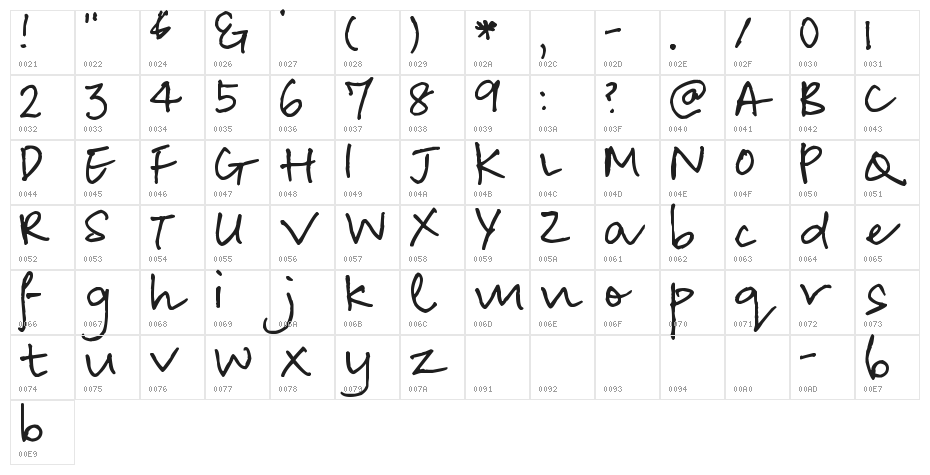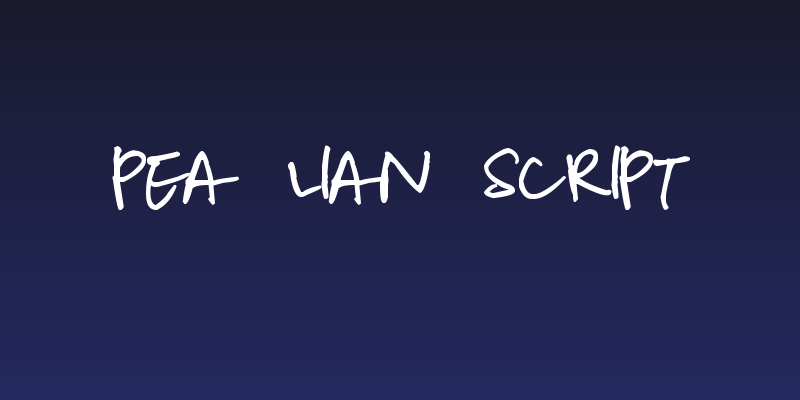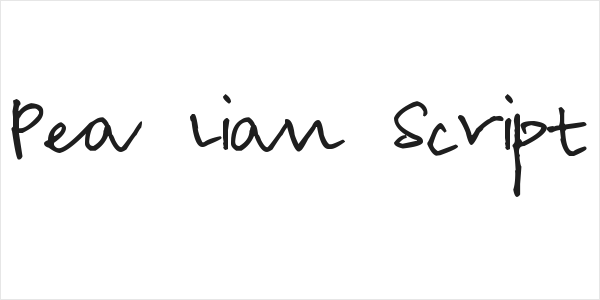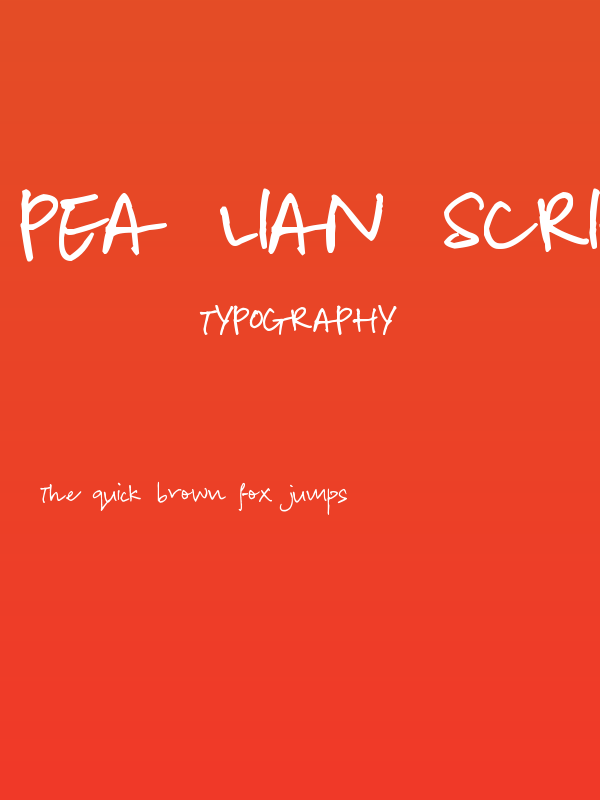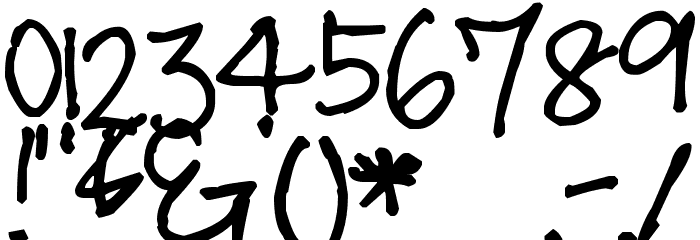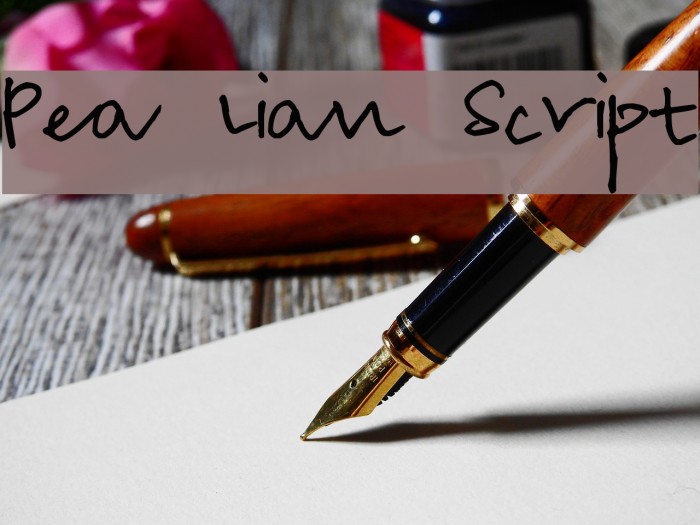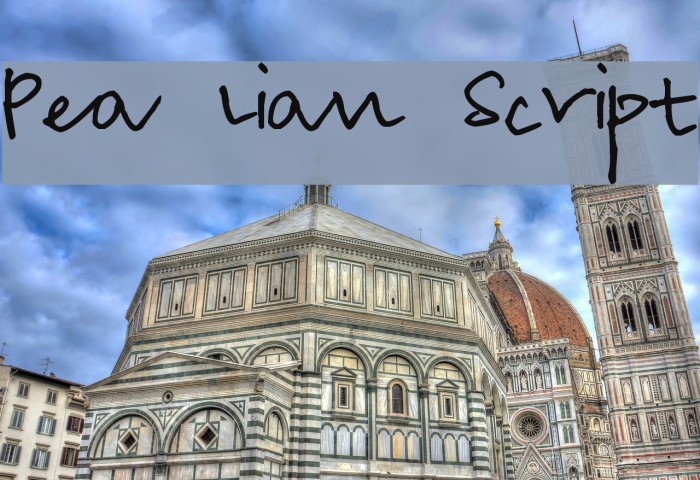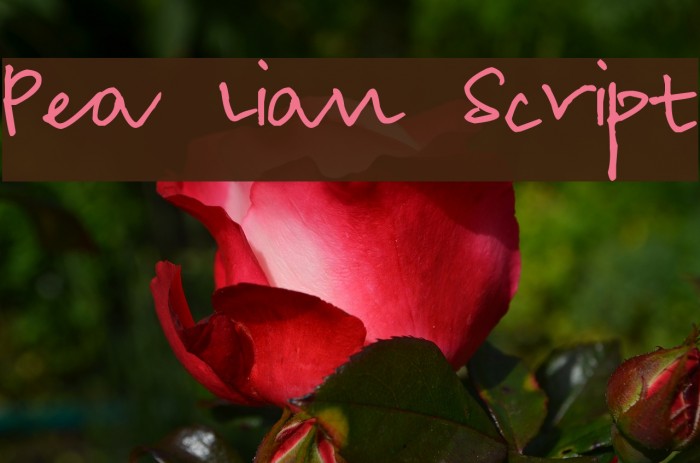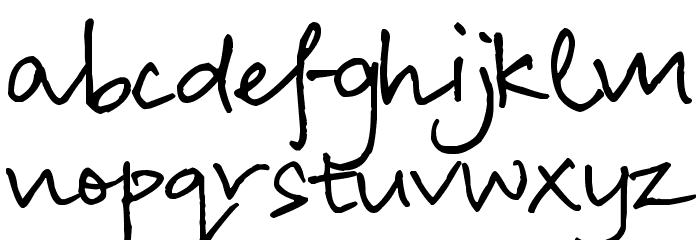
Pea Lian Script Font
Pea Lian Script Description
This font exhibits a casual, handwritten style with a playful and informal appearance. The letters are characterized by their fluid, connected strokes, giving the impression of being written with a marker or brush pen. The uppercase letters maintain a consistent height, while the lowercase letters feature varied ascenders and descenders, adding to the dynamic feel. The numbers are bold and clear, matching the overall style of the alphabet. Special characters are integrated seamlessly, maintaining the handwritten aesthetic. This font is ideal for projects that require a personal touch, such as invitations, greeting cards, or creative branding.
| Use Case | Headlines, Logos, Personal projects |
| Proposed Projects | Ideal for invitations, greeting cards, creative branding, and personal projects. |